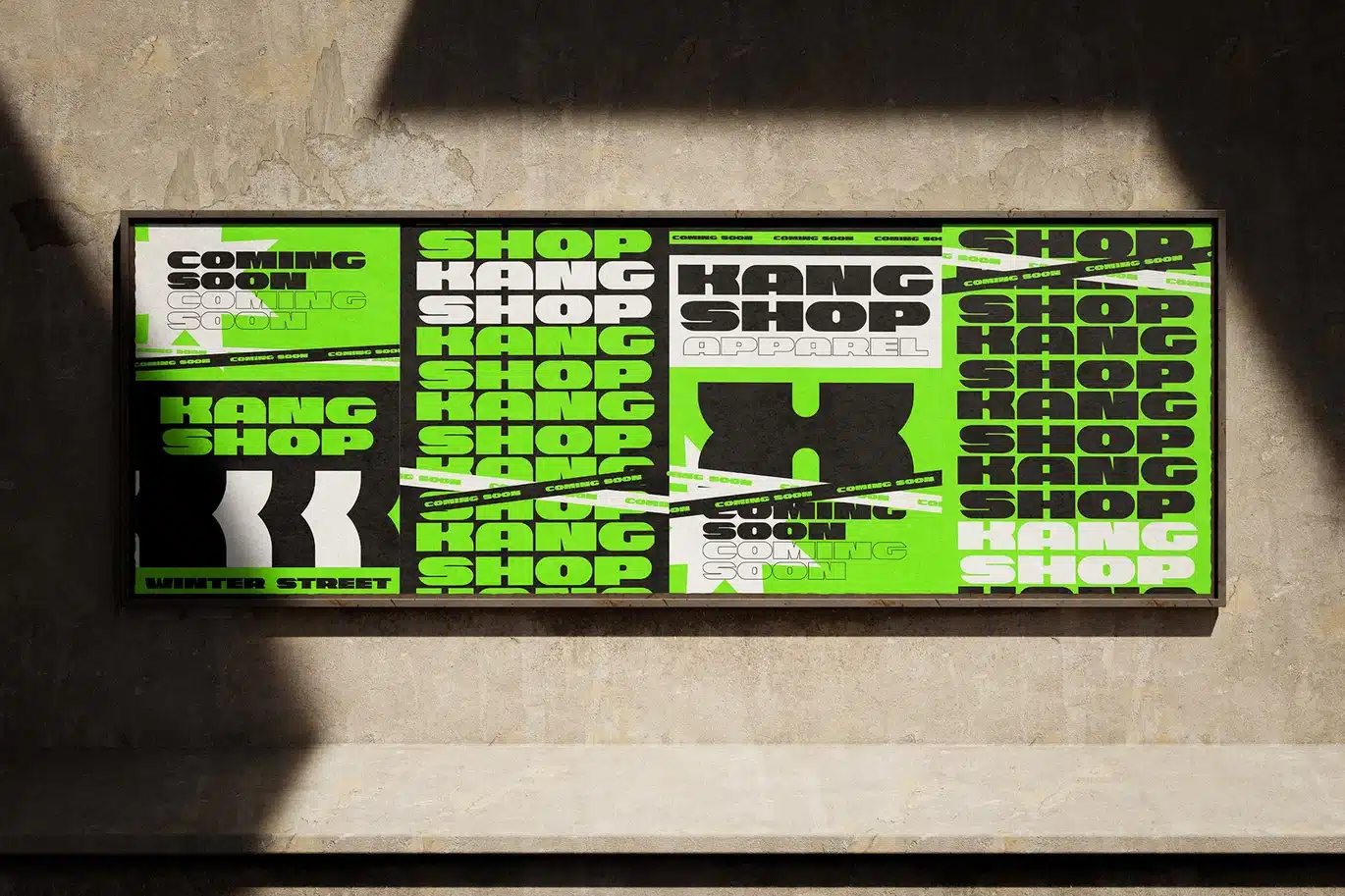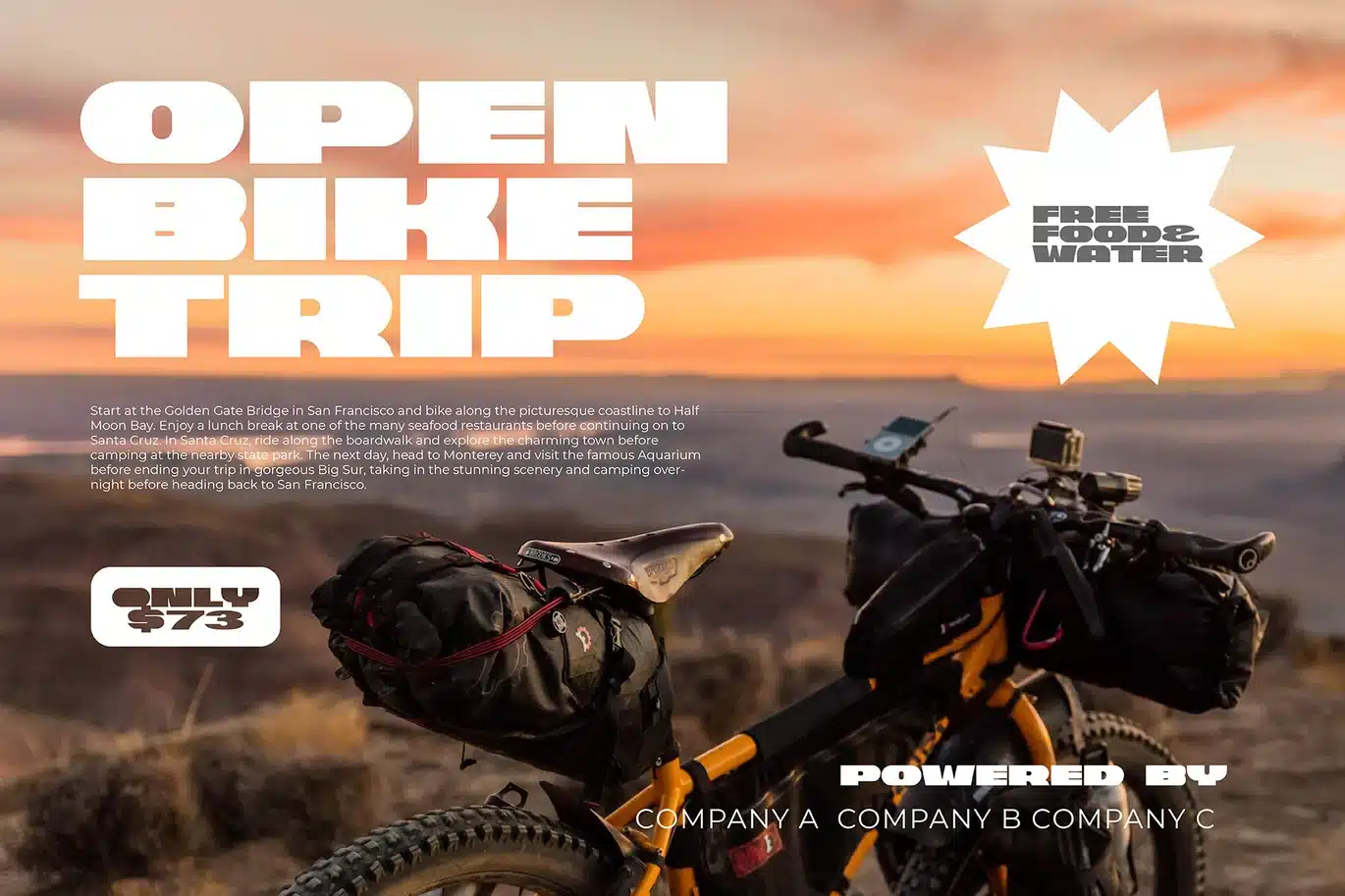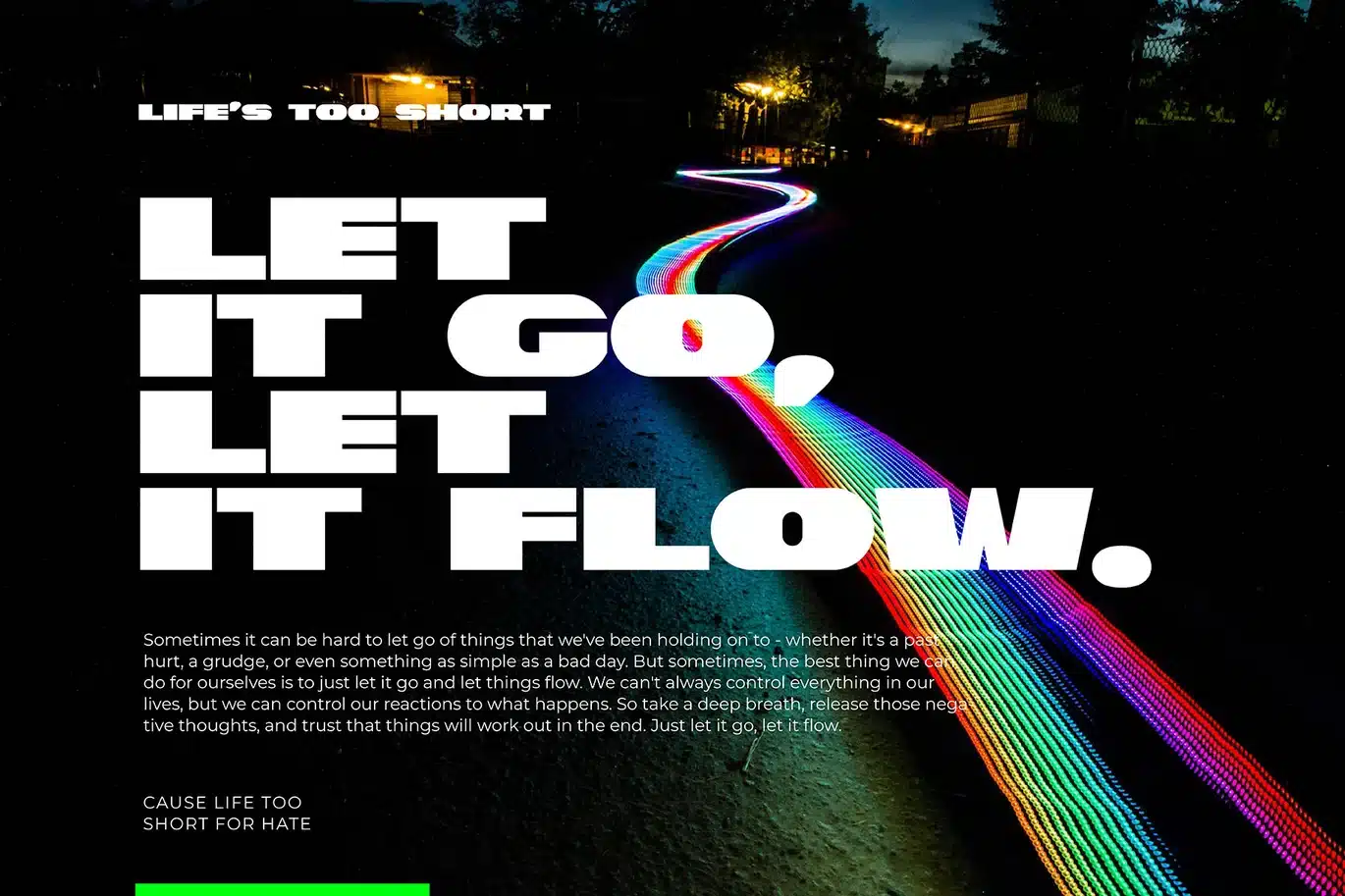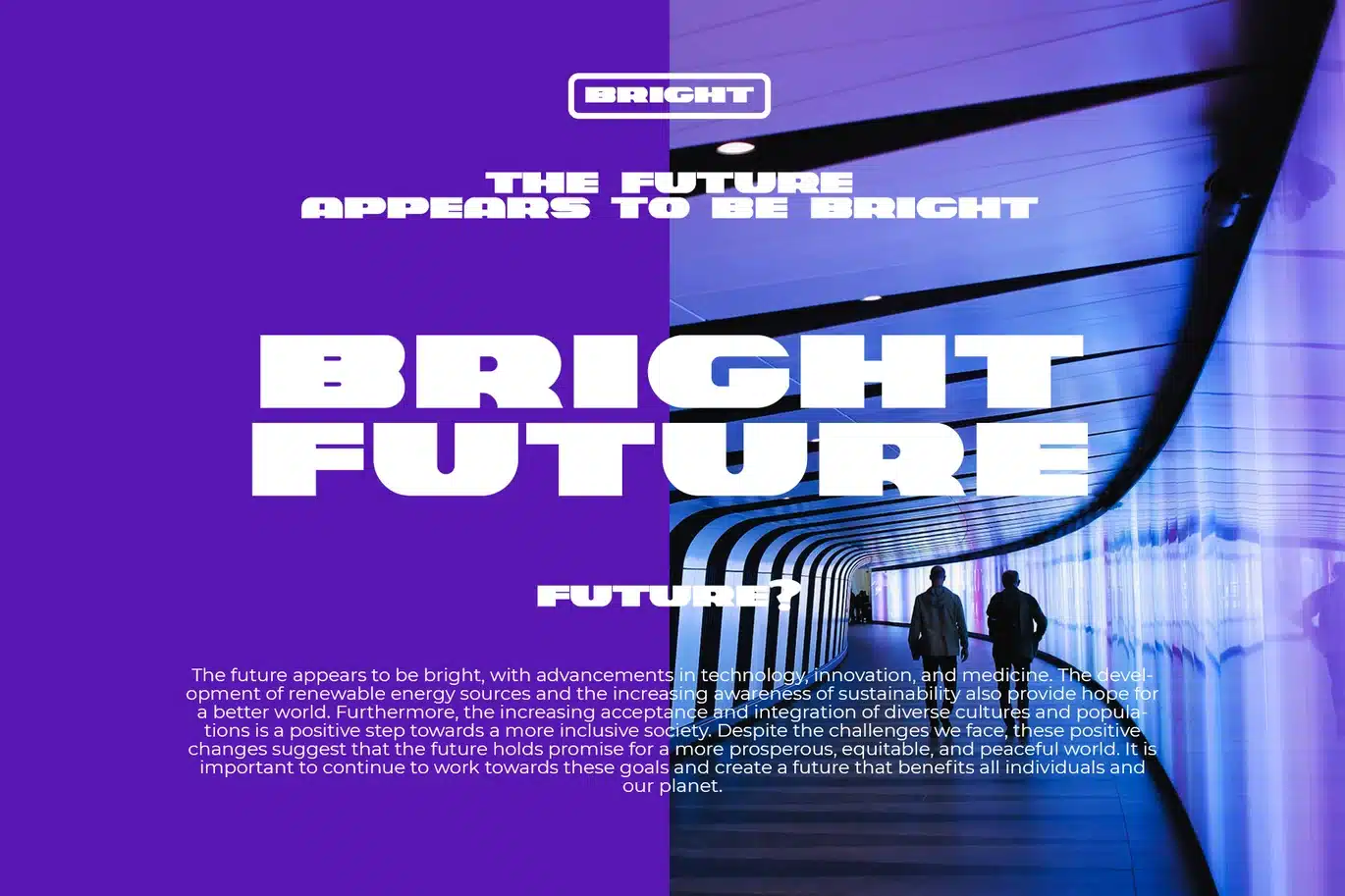
Know Modern Sans Serif Font – Clean & Versatile
Know is a modern sans serif font designed to deliver clean, sharp, and clear typography. Its simple yet bold letterforms make it ideal for a variety of design projects that require a fresh and contemporary look. Whether you work on branding, digital media, or print, Know offers flexibility and style that fits well in many contexts.
First, Know’s design focuses on readability. The font features balanced spacing and smooth lines that help letters stand out without clutter. This means your text will look neat and easy to read, even at smaller sizes. Because of this, it is excellent for user interfaces, websites, and editorial content.
Moreover, Know presents a sleek geometric style with subtle humanist touches. This combination gives it both a modern and approachable feel. As a result, it fits professional presentations and creative designs alike, making it a reliable choice for brands that want to look up-to-date and trustworthy.
Key advantages of Know font include:
Modern sans serif with clean lines
Clear letterforms for easy reading
Balanced spacing for smooth text flow
Versatile for web, print, and branding
Works well in headings and body text
Sleek geometric style with friendly shapes
Ideal for corporate and creative use
Supports multiple languages for global reach
Additionally, Know pairs well with serif fonts, adding contrast and elegance to layouts. This makes it highly adaptable for mixed typography projects, such as magazines and marketing materials.
In summary, Know Modern Sans Serif is a smart choice for designers seeking clarity, style, and versatility. Its clean shapes and modern look help your message stand out, no matter the medium.